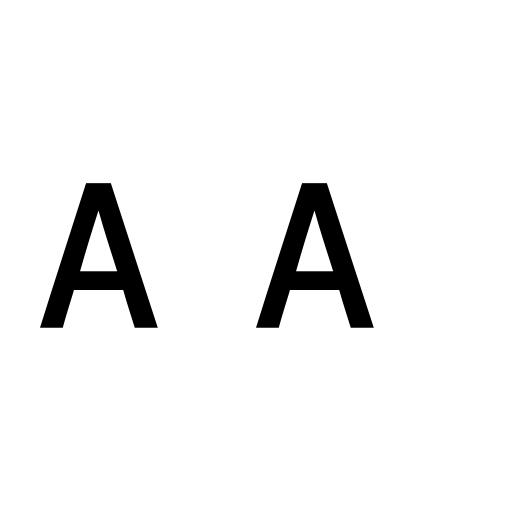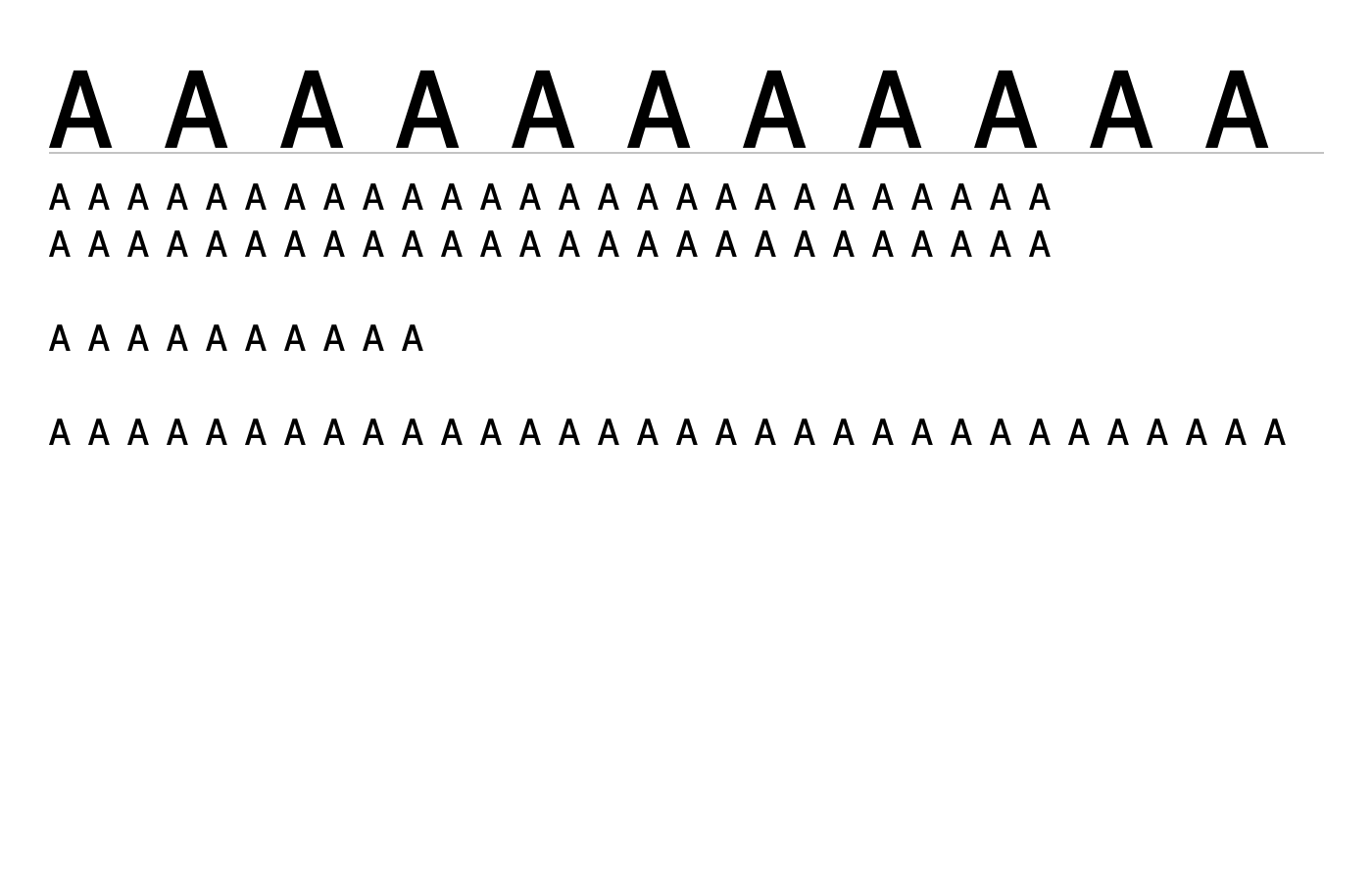
Calculative Font is a clean and modern sans serif typeface featuring a consistent weight and narrow width, which gives it a compact and efficient appearance. Its geometric letterforms with sharp angles and a high x-height create a technical and precise feel, making it ideal for corporate branding, tech-oriented designs, and editorial layouts where clarity and professionalism are key. This font works particularly well in headlines and short blocks of text, delivering a strong and confident visual impact.
Calculative Font